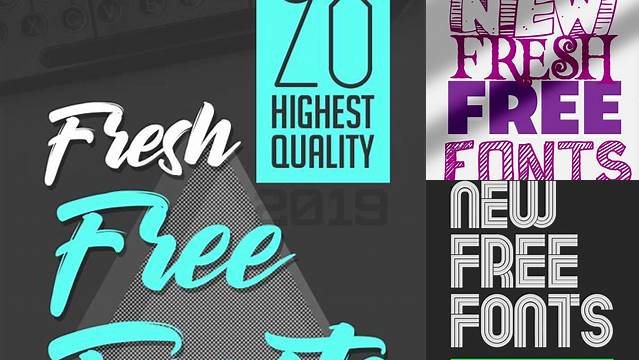
Fresh Free Fonts For Graphic Designers: Unleash Creativity
Finding the perfect font can be a game-changer for any graphic design project. Thankfully, there's a treasure trove of amazing new free fonts available to help graphic designers like you elevate their work. Let's dive into some incredible options and explore how to make the most of them!
1. Modern Sans-Serif Fonts for Designers
New free fonts in the modern sans-serif category are a fantastic choice for projects that need a clean, contemporary feel. These fonts are often characterized by their simplicity, legibility, and geometric shapes. They work well in a variety of applications, from website headers to body text in brochures. Using modern sans-serif fonts can instantly give your designs a polished and professional look, making them ideal for corporate branding, user interfaces, and minimalist designs. For example, fonts like Montserrat or Lato, while widely used, can inspire similar-looking new free fonts that offer a fresh take on the classic sans-serif style. Consider exploring font foundries and design resources websites that frequently release new, high-quality fonts under open-source licenses. Ensure that you check the licensing terms to confirm they are suitable for both personal and commercial use. Experimenting with different weights and styles within the font family can also add depth and visual interest to your designs. Remember, the key is to choose a font that complements your overall design and enhances the user experience.
2. Elegant Serif Fonts: Free Options
For projects that demand a touch of sophistication and tradition, elegant serif fonts are the way to go. New free fonts in this category can bring a sense of history and refinement to your designs, making them perfect for branding high-end products, creating editorial layouts, or designing invitations. Serif fonts are easily identified by the small decorative strokes (serifs) at the end of each letter, which can add a classic and readable feel to your text. However, not all serif fonts are created equal; some have a more contemporary twist while others lean into a more traditional aesthetic. Look for fonts that strike a balance between readability and style, and consider how they pair with other design elements in your project. Pay attention to the font's kerning and leading to ensure optimal legibility, especially when using them for longer passages of text. Some new free fonts might draw inspiration from historical typefaces, updating them for modern use. Always ensure that the font you choose aligns with the overall message and tone of your design. A well-chosen serif font can elevate your project from ordinary to extraordinary.
3. Creative Display Fonts: Free for Commercial Use
When you need a font that makes a statement, creative display fonts are your best bet. New free fonts in this category are designed to grab attention and add personality to your designs. These fonts come in a wide range of styles, from bold and chunky to whimsical and quirky. They are ideal for headlines, posters, logos, and any other application where you want to make a strong visual impact. However, it's essential to use display fonts sparingly, as they can quickly become overwhelming if overused. Choose a display font that complements the overall tone and style of your design, and ensure that it remains legible, even at larger sizes. Many new free fonts in this category are available for commercial use, but always double-check the licensing terms before incorporating them into your projects. Don't be afraid to experiment with different display fonts and see how they can transform your designs. A well-chosen display font can be the key to creating a memorable and impactful visual experience.
4. Hand-Lettered Fonts: Free and Authentic
If you're aiming for a personal and approachable feel, hand-lettered fonts are an excellent choice. New free fonts in this style mimic the look of handwriting, adding a touch of authenticity and warmth to your designs. They are perfect for branding handcrafted products, creating personalized stationery, or adding a human element to your marketing materials. Hand-lettered fonts can range from elegant and flowing scripts to playful and informal scribbles, so it's essential to choose one that aligns with your brand's personality. Keep in mind that readability can sometimes be a challenge with these fonts, so use them sparingly and ensure they are large enough to be easily read. Many new free fonts in this category come with variations and ligatures, giving you more flexibility in your design. Experiment with different color combinations and background textures to enhance the hand-lettered effect. A well-executed hand-lettered font can create a strong emotional connection with your audience, making your designs more memorable and engaging.
5. Unique Script Fonts: Free Options for Designers
Unique script fonts can add a touch of elegance and flair to your designs. These new free fonts are perfect for invitations, logos, and branding materials that require a sophisticated touch. Script fonts often mimic handwriting, bringing a personal and artistic feel to your projects. However, readability is crucial, so choose a script font that is both beautiful and easy to read. Many new free fonts come with stylistic alternates and ligatures, allowing you to customize your text and create a unique look. Experiment with different weights and sizes to see how they affect the overall impact of your design. When using script fonts, consider the context and audience. A formal script might be suitable for a wedding invitation, while a more casual script could work well for a blog header. Always ensure that the font complements the overall design and enhances the message you are trying to convey. With the right script font, you can add a touch of sophistication and personality to any project.
6. Vintage-Inspired Fonts: Free Downloads
Vintage-inspired fonts are perfect for projects that need a nostalgic or retro feel. These new free fonts can evoke a sense of history and craftsmanship, making them ideal for branding, posters, and packaging designs. Vintage fonts often feature unique serifs, decorative elements, and distressed textures that add to their charm. When using vintage fonts, consider the historical context and choose a font that aligns with the specific era you are trying to represent. Pay attention to the details, such as the spacing and kerning, to ensure that the font is legible and visually appealing. Many new free fonts in this category are inspired by classic typefaces, but with a modern twist. Experiment with different color palettes and textures to enhance the vintage effect. A well-chosen vintage font can transport your audience back in time and create a memorable visual experience.
7. Geometric Fonts: Free and Modern Choices
For a clean and contemporary look, geometric fonts are an excellent choice. These new free fonts are characterized by their simple, geometric shapes and minimalist design. They are perfect for logos, branding, and website design that requires a modern and sophisticated feel. Geometric fonts are often highly legible and versatile, making them suitable for both headlines and body text. Many new free fonts in this category are designed with mathematical precision, ensuring that each letterform is perfectly balanced. Experiment with different weights and styles to see how they affect the overall impact of your design. When using geometric fonts, consider the context and audience. A bold geometric font might be suitable for a tech company, while a lighter geometric font could work well for a fashion brand. Always ensure that the font complements the overall design and enhances the message you are trying to convey. With the right geometric font, you can create a modern and professional look that stands out from the crowd.
8. Condensed Fonts: Free for Tight Spaces
When space is limited, condensed fonts can be a lifesaver. These new free fonts are designed to be narrower than traditional fonts, allowing you to fit more text into a smaller area. They are perfect for headlines, labels, and other applications where space is at a premium. Condensed fonts can be either sans-serif or serif, so you can choose one that aligns with the overall style of your design. However, readability is crucial, so choose a condensed font that is still easy to read, even at smaller sizes. Many new free fonts in this category are designed with careful attention to detail, ensuring that each letterform is legible and visually appealing. Experiment with different weights and styles to see how they affect the overall impact of your design. When using condensed fonts, consider the context and audience. A bold condensed font might be suitable for a sports brand, while a lighter condensed font could work well for a minimalist design. Always ensure that the font complements the overall design and enhances the message you are trying to convey. With the right condensed font, you can make the most of limited space without sacrificing readability or style.
9. Slab Serif Fonts: Free and Bold Options
Slab serif fonts are known for their bold and sturdy appearance. These new free fonts feature thick, block-like serifs that add a strong and confident feel to your designs. They are perfect for headlines, posters, and branding materials that need to make a statement. Slab serif fonts can also be used for body text, but it's essential to choose one that is legible and easy on the eyes. Many new free fonts in this category are inspired by vintage typefaces, but with a modern twist. Experiment with different weights and styles to see how they affect the overall impact of your design. When using slab serif fonts, consider the context and audience. A bold slab serif font might be suitable for a construction company, while a lighter slab serif font could work well for a coffee shop. Always ensure that the font complements the overall design and enhances the message you are trying to convey. With the right slab serif font, you can add a touch of strength and personality to any project.
10. Futuristic Fonts: Free for Modern Designs
If you're looking to create a design that feels cutting-edge and innovative, futuristic fonts are the way to go. These new free fonts often feature sleek lines, geometric shapes, and a sense of forward motion. They're perfect for tech startups, science fiction themes, and anything that needs to convey a sense of modernity. Choosing the right futuristic font can instantly elevate your design and make it stand out. Experiment with different fonts to find one that matches your brand's personality and vision. Remember to balance the futuristic aesthetic with readability. After all, you want your message to be clear and impactful. Many new free fonts in this category are designed to push the boundaries of typography, so don't be afraid to try something bold and different. Using futuristic fonts effectively can set your designs apart and create a lasting impression.
11. Distressed Fonts: Free Grunge Styles
For designs that require a raw, edgy, or vintage feel, distressed fonts are an excellent choice. These new free fonts have a worn or weathered appearance, often with rough edges, faded textures, and irregular shapes. They're perfect for creating posters, album covers, and branding materials that need to convey a sense of authenticity or rebellion. Using distressed fonts can add character and depth to your designs, making them feel more tangible and real. However, it's essential to use them sparingly, as too much distress can make your text difficult to read. Many new free fonts in this category are designed to mimic the look of old printing presses or hand-drawn lettering, so they can also be used to create a vintage aesthetic. Experiment with different distressed fonts to find one that matches the overall tone and style of your design. Remember to balance the distressed effect with readability and ensure that your message remains clear and impactful.
12. Pixel Fonts: Free 8-bit Styles
Pixel fonts, also known as 8-bit fonts, are a fun and nostalgic choice for designs that need a retro gaming or tech vibe. These new free fonts are characterized by their blocky, pixelated appearance, reminiscent of early computer graphics. They're perfect for creating logos, website headers, and social media graphics that pay homage to the golden age of video games. Using pixel fonts can add a playful and quirky touch to your designs, making them stand out from the crowd. However, it's essential to use them sparingly, as they can be difficult to read in large blocks of text. Many new free fonts in this category are designed to mimic the look of classic arcade games and computer interfaces, so they can also be used to create a vintage tech aesthetic. Experiment with different pixel fonts to find one that matches the overall tone and style of your design. Remember to balance the pixelated effect with readability and ensure that your message remains clear and impactful. Using pixel fonts effectively can evoke a sense of nostalgia and create a unique visual experience.
13. Outline Fonts: Free and Versatile
Outline fonts are a versatile choice for designs that need a clean and modern look. These new free fonts feature a hollow or outlined appearance, with the interior of the letters left empty. They're perfect for creating logos, icons, and headlines that need to stand out. Using outline fonts can add a sense of lightness and airiness to your designs, making them feel more contemporary and minimalist. They can also be used to create interesting visual effects, such as layering different colors or patterns behind the outlines. Many new free fonts in this category are designed to be highly legible and versatile, so they can be used in a variety of applications. Experiment with different outline fonts to find one that matches the overall tone and style of your design. Remember to balance the outlined effect with readability and ensure that your message remains clear and impactful. Using outline fonts effectively can create a visually striking and memorable design.
14. Variable Fonts: Free and Customizable
Variable fonts are a game-changer for graphic designers, offering unprecedented flexibility and control over typography. These new free fonts allow you to adjust various parameters, such as weight, width, and slant, along a continuous range, rather than being limited to predefined styles. This means you can create an infinite number of variations from a single font file, making them incredibly efficient and versatile. Variable fonts are perfect for responsive designs, branding systems, and any project that requires a high degree of customization. They can also improve website performance by reducing the number of font files that need to be loaded. Many new free fonts in this category are being developed using variable font technology, so it's worth exploring the possibilities. Experiment with different parameters to find the perfect look for your design. Remember to consider the technical aspects of using variable fonts, such as browser support and font loading strategies. Using variable fonts effectively can elevate your designs and provide a seamless user experience.
15. Color Fonts: Free and Vibrant Options
Color fonts, also known as chromatic fonts, are a relatively new technology that allows fonts to contain multiple colors, gradients, and even textures within each glyph. These new free fonts can add a vibrant and eye-catching element to your designs, making them stand out from the crowd. They're perfect for logos, headlines, and social media graphics that need to make a statement. Using color fonts can eliminate the need for layering multiple elements in your design software, saving you time and effort. However, it's essential to consider browser and software support, as not all platforms fully support color fonts. Many new free fonts in this category are being developed using different color font formats, such as SVGinOT and COLR/CPAL, so it's worth exploring the options. Experiment with different color fonts to find one that matches the overall tone and style of your design. Remember to balance the colorful effect with readability and ensure that your message remains clear and impactful. Using color fonts effectively can create a visually stunning and memorable design.
16. Calligraphy Fonts: Free and Elegant Styles
For projects that need a touch of sophistication and artistry, calligraphy fonts are an excellent choice. These new free fonts mimic the fluid strokes and elegant letterforms of traditional calligraphy, adding a personal and handcrafted feel to your designs. They're perfect for invitations, wedding stationery, and branding materials that need to convey a sense of luxury or romance. Using calligraphy fonts can instantly elevate your designs and make them feel more special. However, it's essential to use them sparingly, as they can be difficult to read in large blocks of text. Many new free fonts in this category are designed to capture the essence of different calligraphy styles, such as Copperplate, Spencerian, and Italic. Experiment with different calligraphy fonts to find one that matches the overall tone and style of your design. Remember to balance the calligraphic effect with readability and ensure that your message remains clear and impactful. Using calligraphy fonts effectively can create a visually stunning and memorable design.
17. Brush Fonts: Free and Expressive Options
Brush fonts are a versatile choice for designs that need a hand-painted or artistic look. These new free fonts mimic the texture and stroke variations of brush lettering, adding a personal and expressive feel to your designs. They're perfect for creating logos, posters, and social media graphics that need to stand out. Using brush fonts can add a sense of energy and dynamism to your designs, making them feel more alive and engaging. However, it's essential to use them sparingly, as they can be difficult to read in large blocks of text. Many new free fonts in this category are designed to capture the essence of different brush lettering styles, such as watercolor, ink, and marker. Experiment with different brush fonts to find one that matches the overall tone and style of your design. Remember to balance the brushstroke effect with readability and ensure that your message remains clear and impactful. Using brush fonts effectively can create a visually stunning and memorable design.
18. Rounded Fonts: Free and Friendly Styles
Rounded fonts are a great choice for designs that need a friendly and approachable feel. These new free fonts feature soft, rounded edges that make them feel more welcoming and less formal. They're perfect for branding materials, website designs, and social media graphics that need to convey a sense of warmth and friendliness. Using rounded fonts can make your designs feel more human and relatable, which can be especially effective for brands that want to connect with their audience on an emotional level. Many new free fonts in this category are designed to be highly legible and versatile, so they can be used in a variety of applications. Experiment with different rounded fonts to find one that matches the overall tone and style of your design. Remember to balance the rounded effect with readability and ensure that your message remains clear and impactful. Using rounded fonts effectively can create a visually appealing and engaging design.
19. Handwritten Fonts: Free and Personal
If you want to add a personal touch to your designs, handwritten fonts are an excellent choice. These new free fonts mimic the look of real handwriting, adding a sense of authenticity and warmth to your projects. They're perfect for creating greeting cards, invitations, and branding materials that need to feel unique and special. Using handwritten fonts can make your designs more relatable and engaging, as they convey a sense of human connection. However, it's important to choose a handwritten font that is legible and easy to read. Many new free fonts in this category are designed to capture the nuances of different handwriting styles, from casual scribbles to elegant scripts. Experiment with different handwritten fonts to find one that matches the overall tone and style of your design. Remember to balance the handwritten effect with readability and ensure that your message remains clear and impactful. Using handwritten fonts effectively can create a visually appealing and memorable design.
20. Display Fonts for Headlines: Free Options
Display fonts are specifically designed to grab attention and make a statement, making them perfect for headlines. These new free fonts often feature unique and eye-catching designs that can instantly elevate your designs. When selecting display fonts for headlines, ensure readability is still a priority. Choose fonts that align with the overall style and message of your design. Many new free fonts in this category offer a wide range of styles, from bold and impactful to elegant and refined, so you can find the perfect font to suit your needs. Experiment with different sizes and weights to see how they affect the overall impact of your headline. Remember, a well-chosen display font can be the key to creating a memorable and effective design.
21. Fonts for Logos: New Free Choices
Choosing the right font for a logo is crucial, as it represents the brand's identity and values. Fonts for logos need to be versatile, memorable, and legible. New free fonts that are clean, modern, and adaptable are often a good choice for logo design. When selecting a logo font, consider the brand's personality and target audience. Many new free fonts in this category are designed to be easily recognizable and scalable, so they can be used in a variety of applications, from business cards to billboards. Experiment with different fonts and variations to find one that perfectly captures the essence of your brand. Remember, a well-designed logo can make a lasting impression, so choose your font wisely.
22. Web Fonts: Free for Online Use
When designing for the web, it's essential to choose fonts that are optimized for online use. Web fonts need to be legible, fast-loading, and compatible with different browsers and devices. New free fonts that are specifically designed for the web are often a great choice, as they are optimized for performance and readability. When selecting web fonts, consider the overall design and user experience. Many new free fonts in this category are available through services like Google Fonts, making them easy to implement on your website. Experiment with different font pairings and styles to find a combination that looks great and performs well. Remember, a well-chosen web font can enhance the user experience and make your website more engaging.
23. Fonts for Print: New Free Options
For print design, the choice of font is just as important as it is for web design. Fonts for print need to be legible, well-spaced, and suitable for the printing process. New free fonts that are designed with print in mind often have subtle details that enhance their appearance on paper. When selecting print fonts, consider the type of project and the intended audience. Many new free fonts in this category are available in different weights and styles, allowing you to create a consistent and visually appealing design. Experiment with different font sizes and layouts to see how they affect the overall impact of your printed materials. Remember, a well-chosen print font can make your designs look professional and polished.
24. Google Fonts: New and Free Selections
Google Fonts is a vast library of free and open-source fonts that are easy to use and integrate into your projects. The platform is constantly updated with new Google Fonts, providing designers with a wide range of options to choose from. These new free fonts cover various styles, from classic serifs to modern sans-serifs, making it easy to find the perfect font for your needs. When selecting Google Fonts, consider the overall design and user experience. Many new free fonts in this category are optimized for web use, ensuring fast loading times and readability. Experiment with different font pairings and styles to create a visually appealing and engaging design. Remember, Google Fonts offers a convenient and reliable way to access high-quality fonts for free.
25. Open Source Fonts: Free and Customizable
Open source fonts offer a unique combination of freedom and flexibility for designers. These new free fonts are released under open-source licenses, allowing you to use, modify, and distribute them without restrictions. This means you can customize the fonts to fit your specific needs and even contribute back to the font community. When selecting open-source fonts, consider the licensing terms and the level of support available. Many new free fonts in this category are developed by passionate designers and typographers who are dedicated to creating high-quality resources for the design community. Experiment with different open-source fonts to find one that aligns with your values and design aesthetic. Remember, open-source fonts offer a great way to support independent creators and contribute to the collaborative spirit of the design world.
26. Fonts for Social Media Graphics: Free and Engaging
Fonts for social media graphics need to be eye-catching, legible, and optimized for small screens. New free fonts that are bold, modern, and versatile are often a good choice for social media design. When selecting fonts for social media, consider the platform and the target audience. Many new free fonts in this category are designed to stand out in crowded feeds and capture attention quickly. Experiment with different font pairings and styles to create visually appealing and engaging graphics. Remember, well-chosen fonts can help your social media content get noticed and shared.
27. Fonts for Branding: New Free Options
A brand's font choices play a crucial role in shaping its identity and conveying its message. Fonts for branding need to be versatile, memorable, and aligned with the brand's values. New free fonts that offer a unique and distinctive look can help your brand stand out from the competition. When selecting branding fonts, consider the target audience and the overall brand aesthetic. Many new free fonts in this category are designed to be easily recognizable and scalable, ensuring consistency across all branding materials. Experiment with different fonts and variations to find one that perfectly captures the essence of your brand. Remember, a well-chosen font can make a lasting impression and contribute to a strong brand identity.
28. Fonts for Mobile Apps: Free and Readable
Fonts for mobile apps need to be highly legible, optimized for small screens, and compatible with different operating systems. New free fonts that are clean, simple, and well-spaced are often the best choice for mobile app design. When selecting fonts for mobile apps, consider the user experience and the overall design aesthetic. Many new free fonts in this category are designed to be easily readable even at small sizes, ensuring that users can easily navigate and interact with your app. Experiment with different font weights and styles to create a visually appealing and user-friendly interface. Remember, well-chosen fonts can enhance the user experience and make your mobile app more engaging.
29. Fonts for E-books: Free and Legible Choices
When formatting an e-book, readability is paramount. Fonts for e-books need to be legible, comfortable to read for extended periods, and compatible with different e-readers. New free fonts that are designed with e-books in mind often have subtle details that enhance their appearance on digital screens. When selecting fonts for e-books, consider the overall design and the intended audience. Many new free fonts in this category are available in different weights and styles, allowing you to create a consistent and visually appealing reading experience. Experiment with different font sizes and line heights to find the optimal settings for your e-book. Remember, a well-chosen e-book font can make a significant difference in the reading experience and keep your audience engaged.
30. Pairing Fonts: Free Resources and Tips
Pairing fonts effectively is a crucial skill for any graphic designer. Combining different fonts can add visual interest and hierarchy to your designs, but it's important to do it thoughtfully. New free fonts can be paired with existing favorites to create unique and compelling designs. When pairing fonts, consider the overall style and message of your design. Many online resources offer tips and suggestions for font pairings, helping you find combinations that work well together. Experiment with different pairings to find a combination that matches your brand's personality and vision. Remember, well-chosen font pairings can elevate your designs and create a cohesive and professional look.